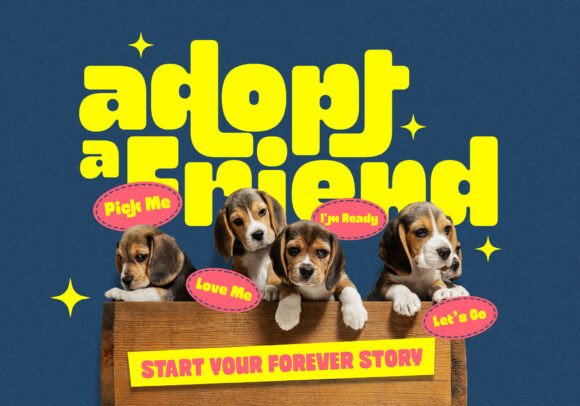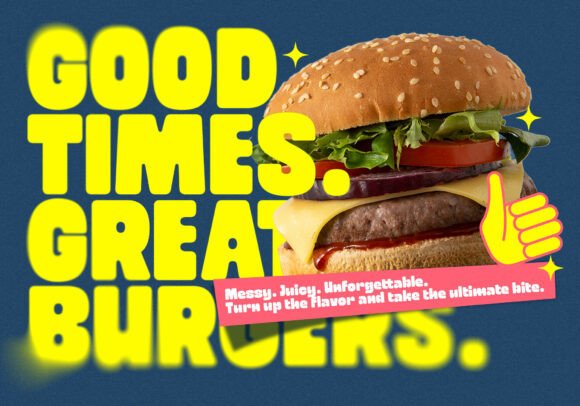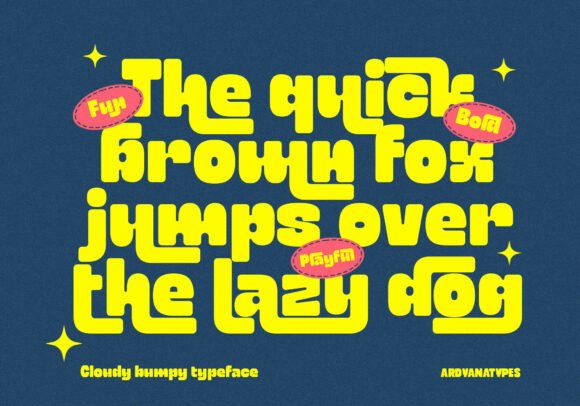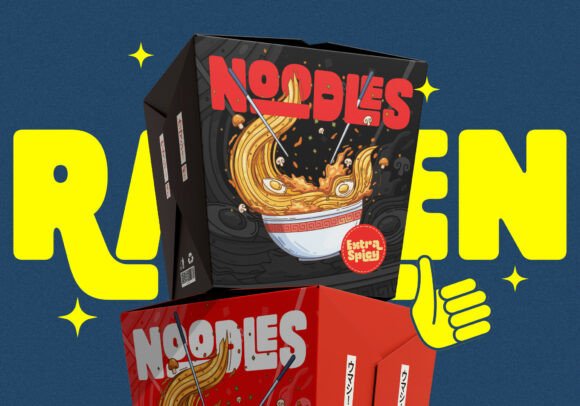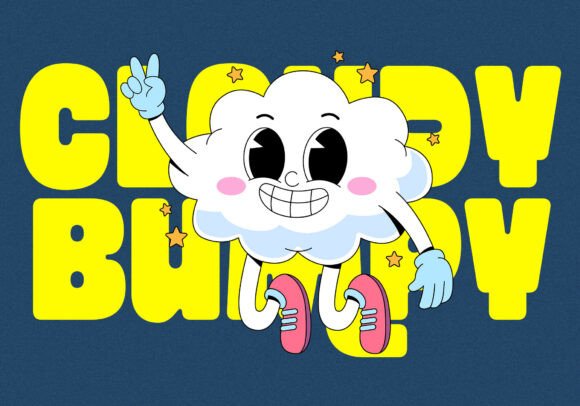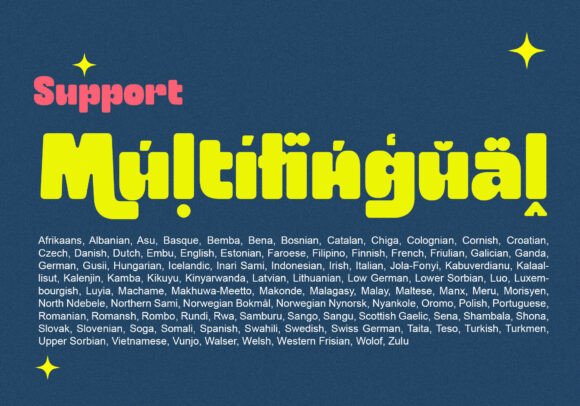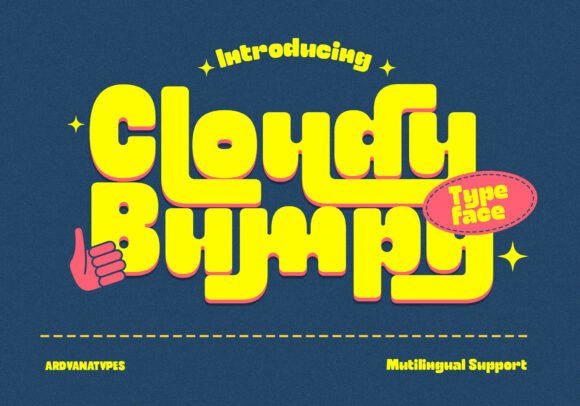
Introducing Cloudy Bumpy: The Ultimate Display Typeface for Bold and Playful Designs
Are you tired of using the same old fonts for your designs? Look no further than Cloudy Bumpy, a super bold display typeface that’s sure to add a touch of personality to your projects. With its soft curves, vibrant personality, and playful “bumpy” contours, Cloudy Bumpy is the perfect choice for designers and crafters looking to make a statement.
What Makes Cloudy Bumpy So Special?
Cloudy Bumpy is designed with thick strokes and a unique blend of rounded terminals and solid proportions, giving it a strong yet friendly appearance. This makes it an ideal choice for a wide range of applications, from headlines and food and beverage packaging to kids branding, promotional posters, social media graphics, and merchandise designs. Whether you’re looking to grab attention or add a touch of whimsy to your designs, Cloudy Bumpy is the perfect choice.
The Power of OpenType Features
One of the standout features of Cloudy Bumpy is its extensive OpenType features. With stylistic alternates, ligatures, and multiple character variations, designers have the flexibility to create dynamic and less repetitive typography compositions. This means that you can take simple words and turn them into visually engaging statements that capture the attention of your audience.
Cloudy Bumpy is a versatile typeface that works exceptionally well for a wide range of applications. Here are just a few examples of how you can use Cloudy Bumpy to elevate your designs:
- Headlines: Use Cloudy Bumpy to create bold and attention-grabbing headlines that draw readers in.
- Food and Beverage Packaging: Add a touch of whimsy and personality to your food and beverage packaging with Cloudy Bumpy.
- Kids Branding: Cloudy Bumpy is perfect for kids branding, with its playful and energetic vibe.
- Promotional Posters: Use Cloudy Bumpy to create eye-catching promotional posters that grab attention.
- Social Media Graphics: Add a touch of personality to your social media graphics with Cloudy Bumpy.
- Merchandise Designs: Use Cloudy Bumpy to create fun and playful merchandise designs that stand out.
Tips for Using Cloudy Bumpy
Here are a few tips for getting the most out of Cloudy Bumpy:
- Experiment with different OpenType features: Don’t be afraid to try out different OpenType features to see what works best for your design.
- Use Cloudy Bumpy for headlines and titles: Cloudy Bumpy is perfect for headlines and titles, so use it to create bold and attention-grabbing text.
- Pair Cloudy Bumpy with other fonts: Try pairing Cloudy Bumpy with other fonts to create a unique and visually interesting design.
Cloudy Bumpy is a super bold display typeface that’s sure to add a touch of personality to your designs. With its soft curves, vibrant personality, and playful “bumpy” contours, Cloudy Bumpy is the perfect choice for designers and crafters looking to make a statement. Whether you’re looking to create bold headlines, whimsical packaging, or playful merchandise designs, Cloudy Bumpy is the perfect choice. So why wait? Download Cloudy Bumpy today and start creating visually engaging designs that capture the attention of your audience.